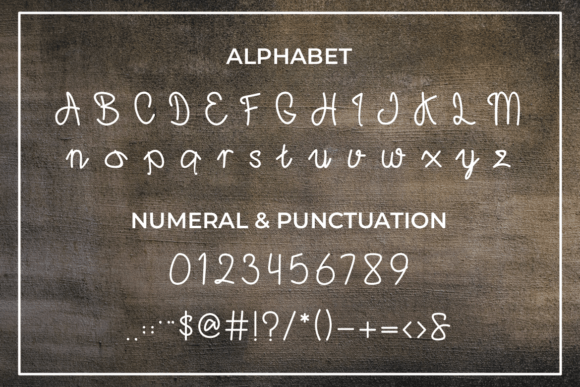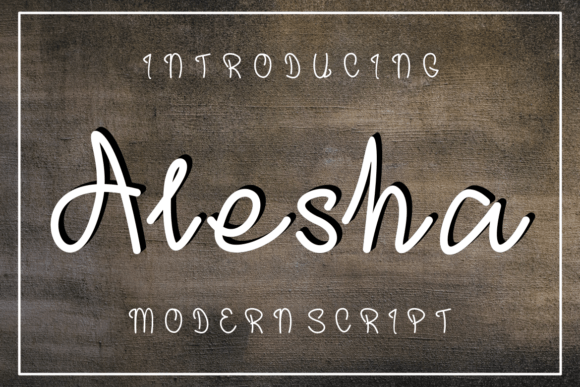
Alesha Font: Add a Touch of Whimsy to Your Designs
Alesha font is a delightful and charming handwritten font that is sure to bring a smile to your face. With its playful and cute personality, Alesha is an excellent choice for designers and crafters looking to add a touch of whimsy to their projects. In this article, we’ll dive into the world of Alesha font, exploring its features, uses, and benefits.
What is Alesha Font?
Alesha font is a fun and whimsical handwritten font designed to add a personal touch to your designs. Its unique and quirky style makes it perfect for a wide range of projects, from invitations and greeting cards to social media graphics and branding materials. Alesha font is a versatile and adaptable font that can be used in various contexts, making it an excellent addition to any designer’s toolkit.
Features of Alesha Font
Alesha font boasts several features that make it a standout choice for designers and crafters. Some of its key features include:
- Playful and cute personality: Alesha font has a fun and lively personality that is sure to capture the attention of your audience.
- Handwritten style: Alesha font has a beautiful, handwritten style that adds a personal touch to your designs.
- Whimsical and quirky: Alesha font has a unique and quirky style that makes it perfect for designers and crafters looking to add a touch of whimsy to their projects.
- Versatile and adaptable: Alesha font can be used in various contexts, from formal to informal projects.
Uses of Alesha Font
Alesha font is suitable for a wide range of design ideas, including:
- Invitations and greeting cards: Alesha font is perfect for creating playful and fun invitations and greeting cards for special occasions.
- Social media graphics: Alesha font can be used to create engaging and eye-catching social media graphics, such as Facebook posts, Instagram stories, and Twitter headers.
- Branding materials: Alesha font can be used to create unique and memorable branding materials, such as logos, business cards, and letterheads.
- Crafting projects: Alesha font can be used in various crafting projects, such as scrapbooking, journaling, and card making.
Benefits of Using Alesha Font
Using Alesha font in your designs offers several benefits, including:
- Unique and memorable designs: Alesha font helps you create unique and memorable designs that stand out from the crowd.
- Emotional connection: Alesha font’s playful and cute personality helps create an emotional connection with your audience.
- Time-saving: Alesha font is easy to use and saves you time in the design process.
Tips for Using Alesha Font
Here are some tips for using Alesha font in your designs:
- Use it with contrasting colors: Alesha font looks best when paired with contrasting colors that make it stand out.
- Experiment with different sizes: Alesha font can be used in various sizes, from small to large, to create visual interest.
- Pair it with other fonts: Alesha font can be paired with other fonts to create a unique and interesting combination.
- Use it consistently: Use Alesha font consistently throughout your design to create a cohesive look.
Alesha font is a fun and whimsical handwritten font that is perfect for designers and crafters looking to add a touch of whimsy to their projects. With its playful and cute personality, Alesha font is suitable for a wide range of design ideas, from invitations and greeting cards to social media graphics and branding materials. By using Alesha font, you can create unique and memorable designs that capture the attention of your audience.